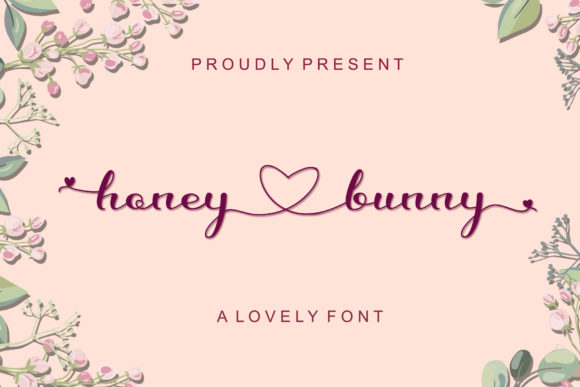
Step into a world of charm and elegance with Honey Bunny Font, a captivating script font designed to add a touch of magic to your creative projects. Inspired by the allure of handwritten notes, Honey Bunny boasts a friendly and stylish personality, making it the perfect choice for fashion enthusiasts, bloggers, and designers seeking a distinctive touch.
Crafted with precision and attention to detail, Honey Bunny's smooth curves and dynamic swashes create a visually stunning effect that will elevate your designs to new heights. Whether you're creating logos, invitations, or social media graphics, Honey Bunny's readability and charm will leave a lasting impression on your audience.
Unleash your creativity and explore the endless possibilities with Honey Bunny. Dive into the world of fashion branding and editorial design, where Honey Bunny's unique style will add a touch of sophistication and elegance. Let your imagination soar as you create captivating marketing materials, stunning websites, and social media posts that exude personality and charm.
With Honey Bunny's PUA encoding, you'll have effortless access to all the glyphs and swashes, making it a breeze to add intricate details and flourishes to your designs. Experience the joy of seamless customization and bring your creative vision to life with Honey Bunny's versatile charm.
Don't let your designs settle for ordinary. Embrace the allure of Honey Bunny Font and embark on a creative journey where beauty and functionality harmoniously coexist. Add Honey Bunny to your font collection today and unlock a world of endless possibilities. Let your creativity flourish and leave a lasting impression with Honey Bunny's timeless charm.